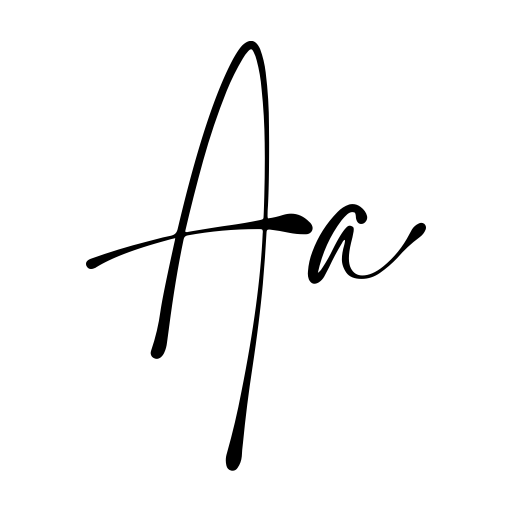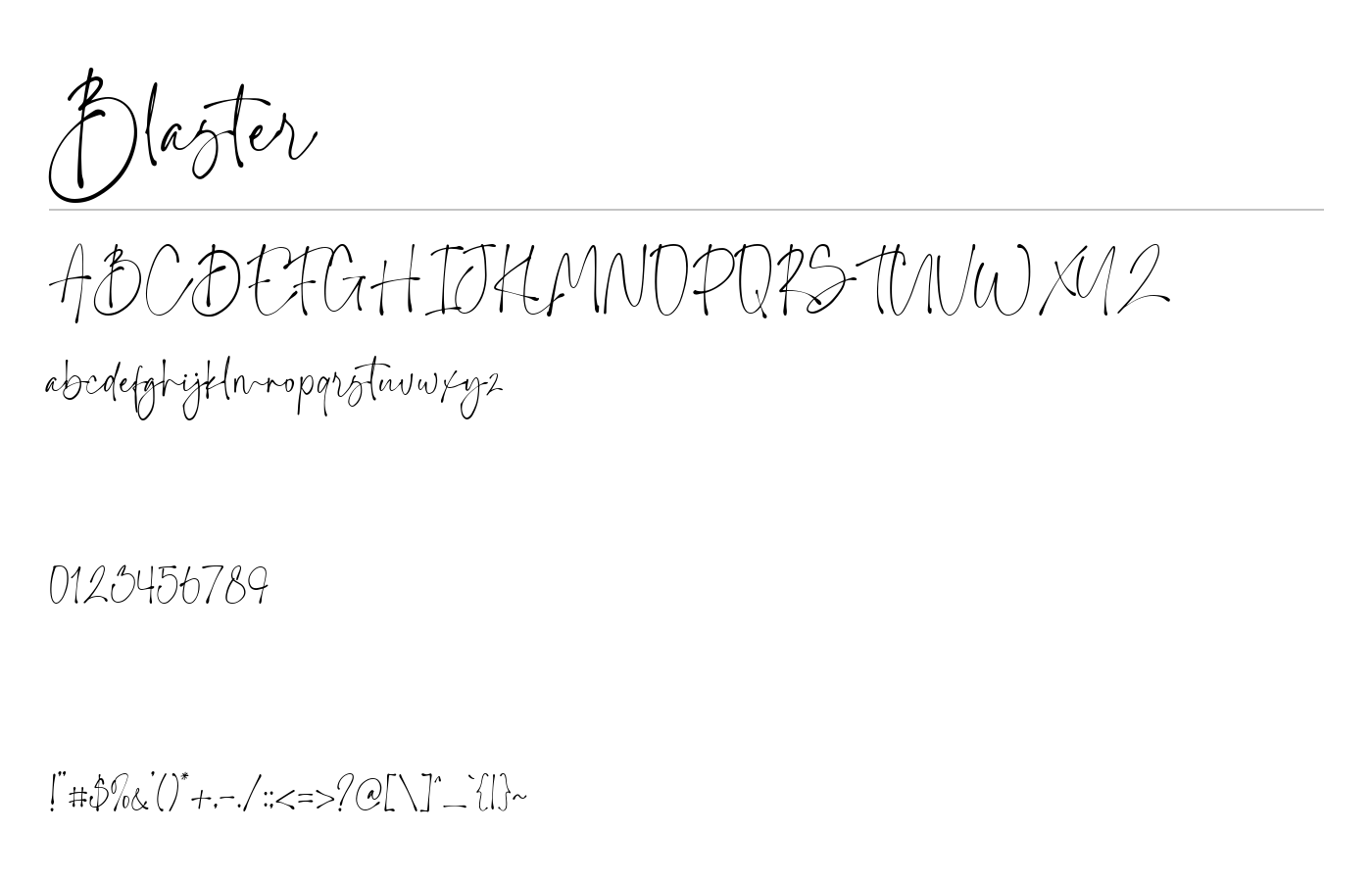
Blaster is a delicate, handwritten script font with thin, airy strokes and a casual, elegant feel. Its tall, slender letterforms with playful loops and varying line textures make it perfect for creative projects, personal branding, and invitations where a subtle, artistic touch is desired. This font shines best in display sizes, adding personality and charm to designs without overpowering the overall look.
Blaster Font
About Blaster Font